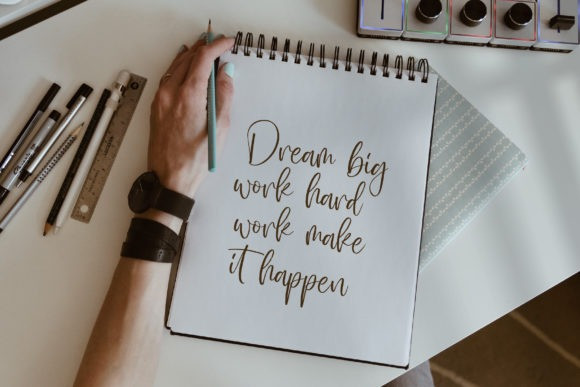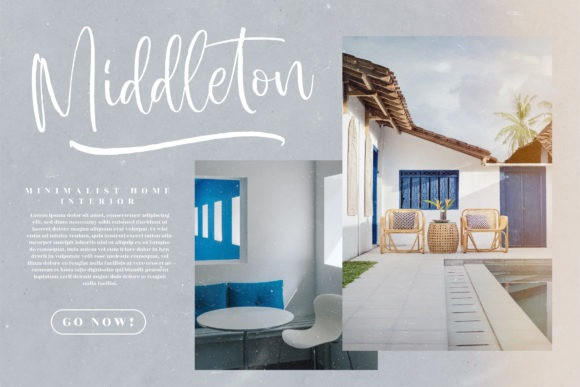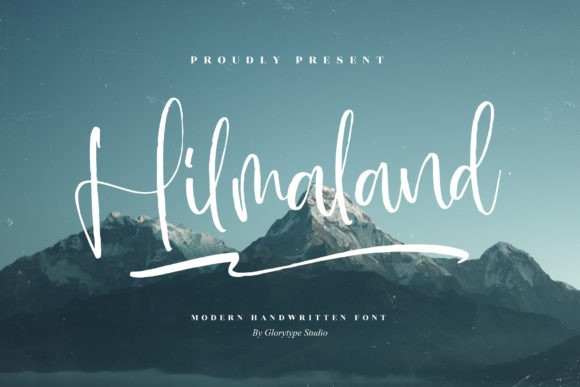
Hilmaland Font
Hilmaland is a beautiful script font suitable for projects that need natural and authentic typography. Its characters look poetic, romantic, and exquisite. This font can make any text seem personal and deeply meaningful!